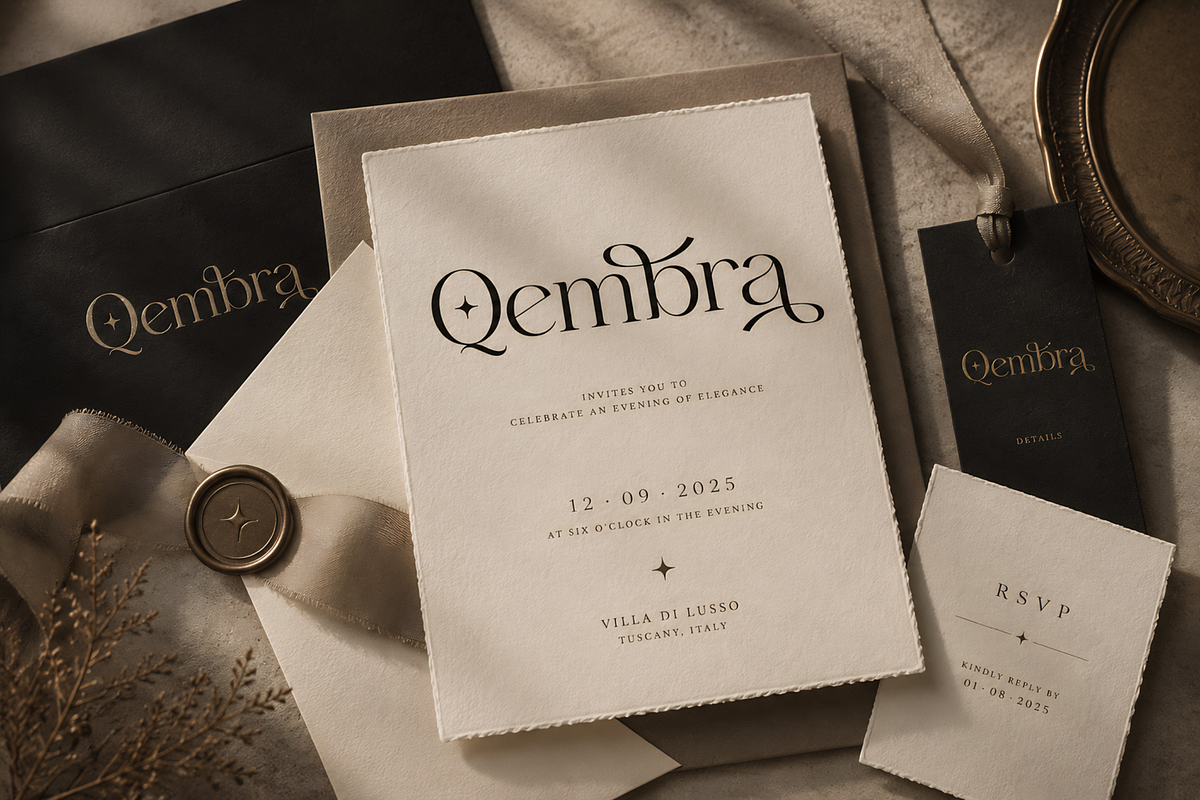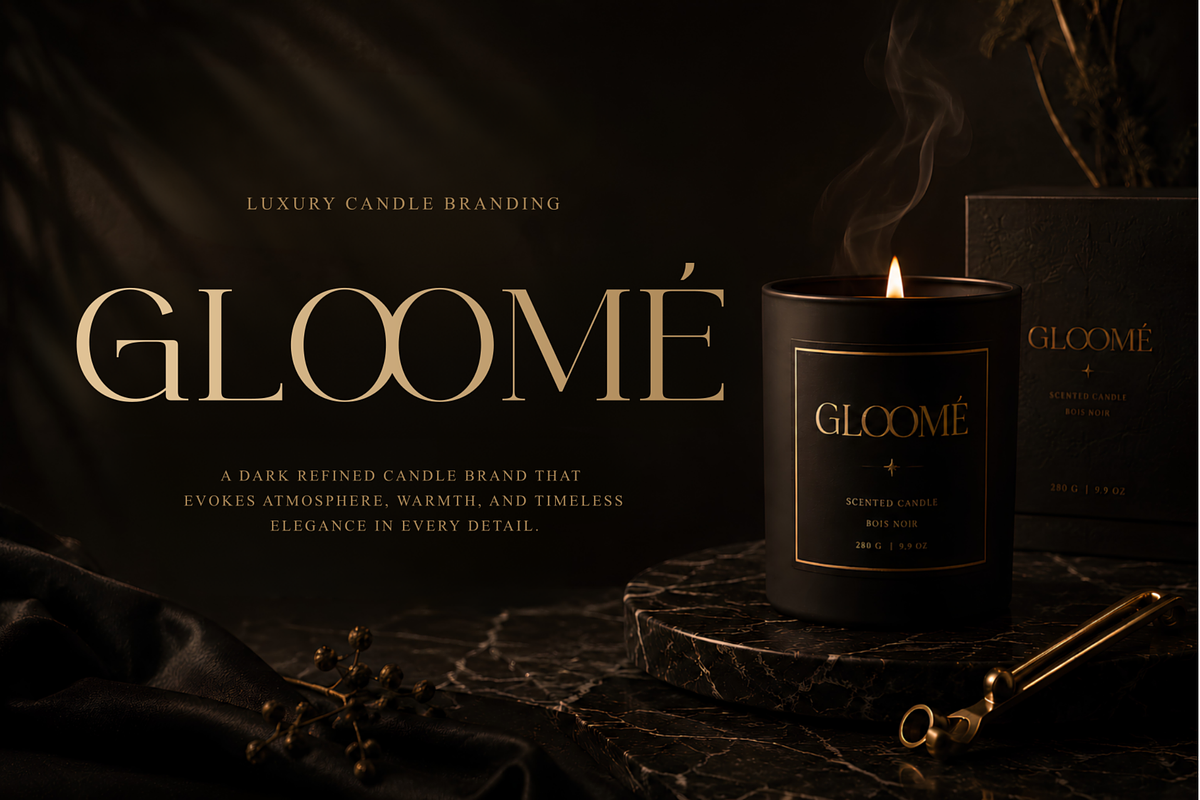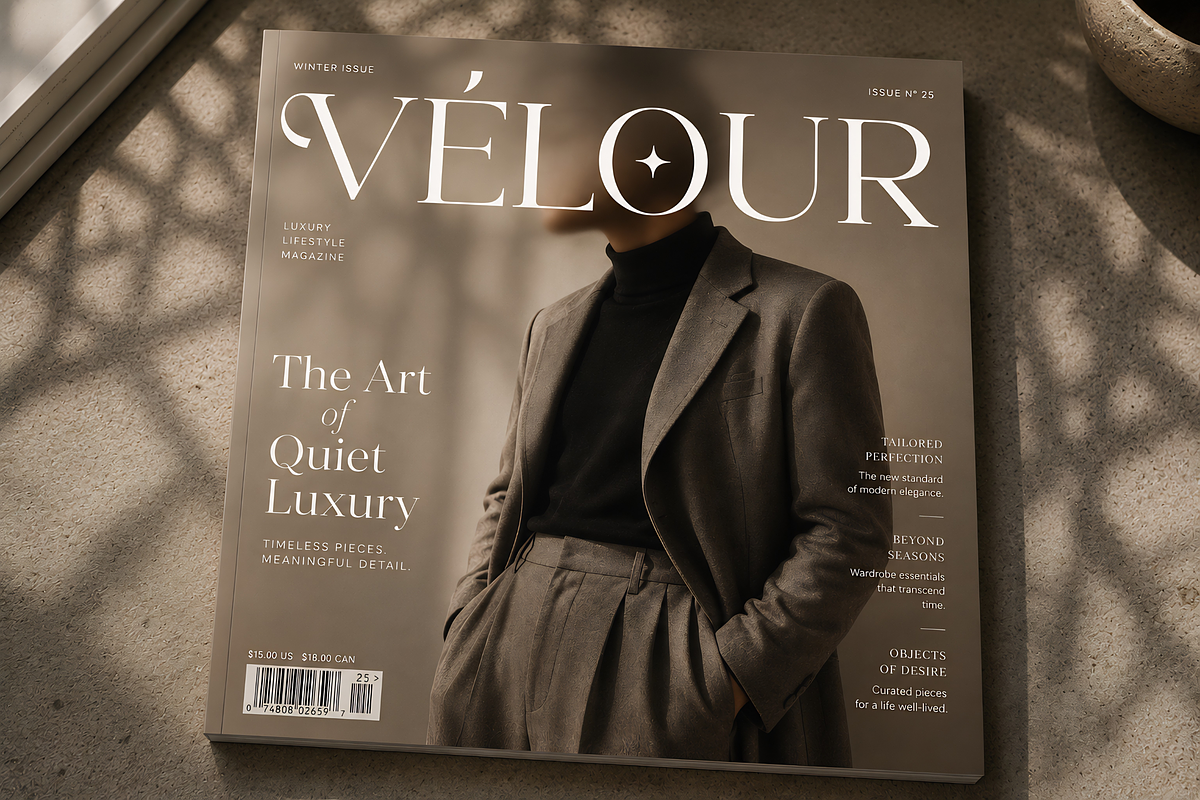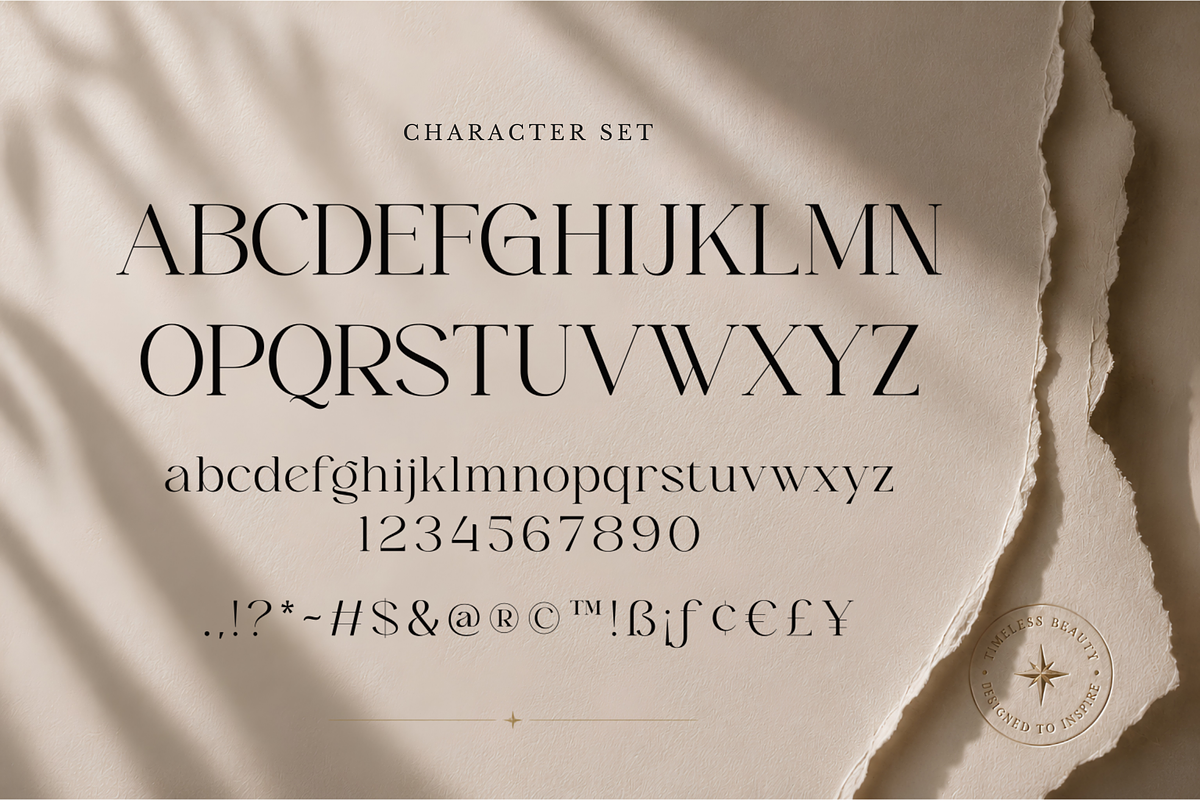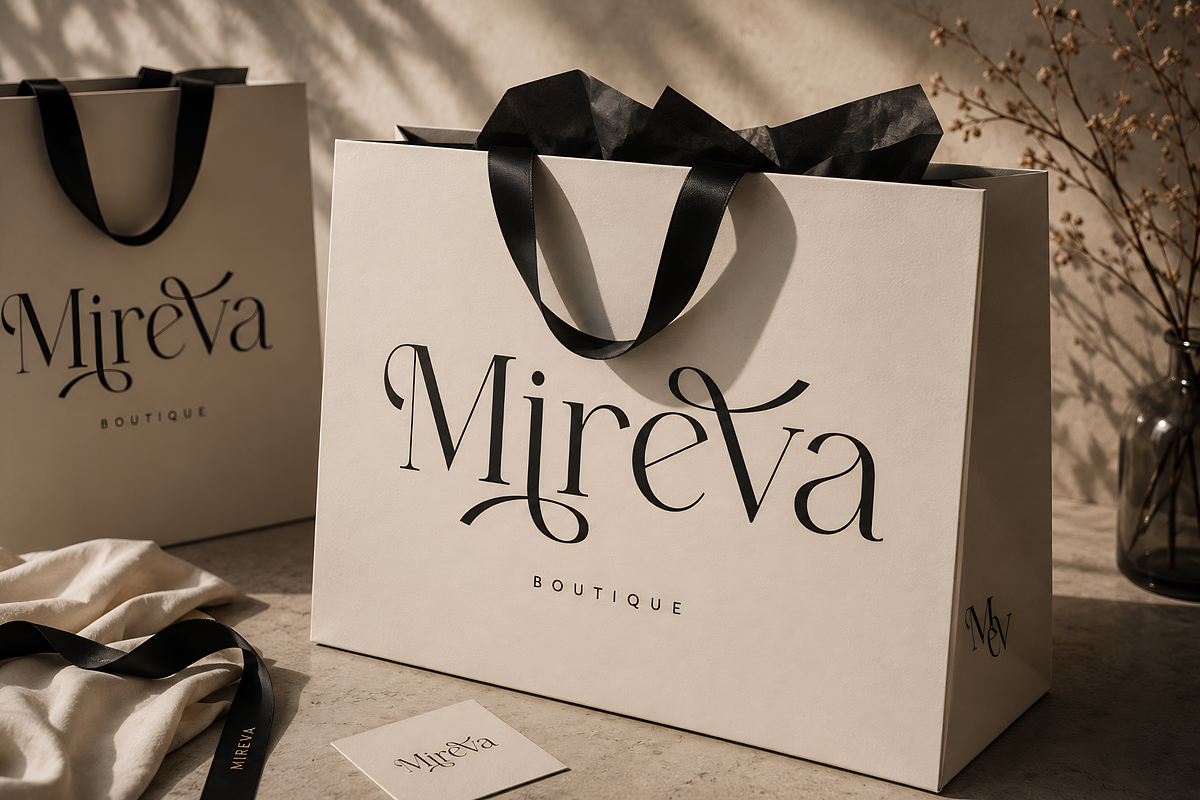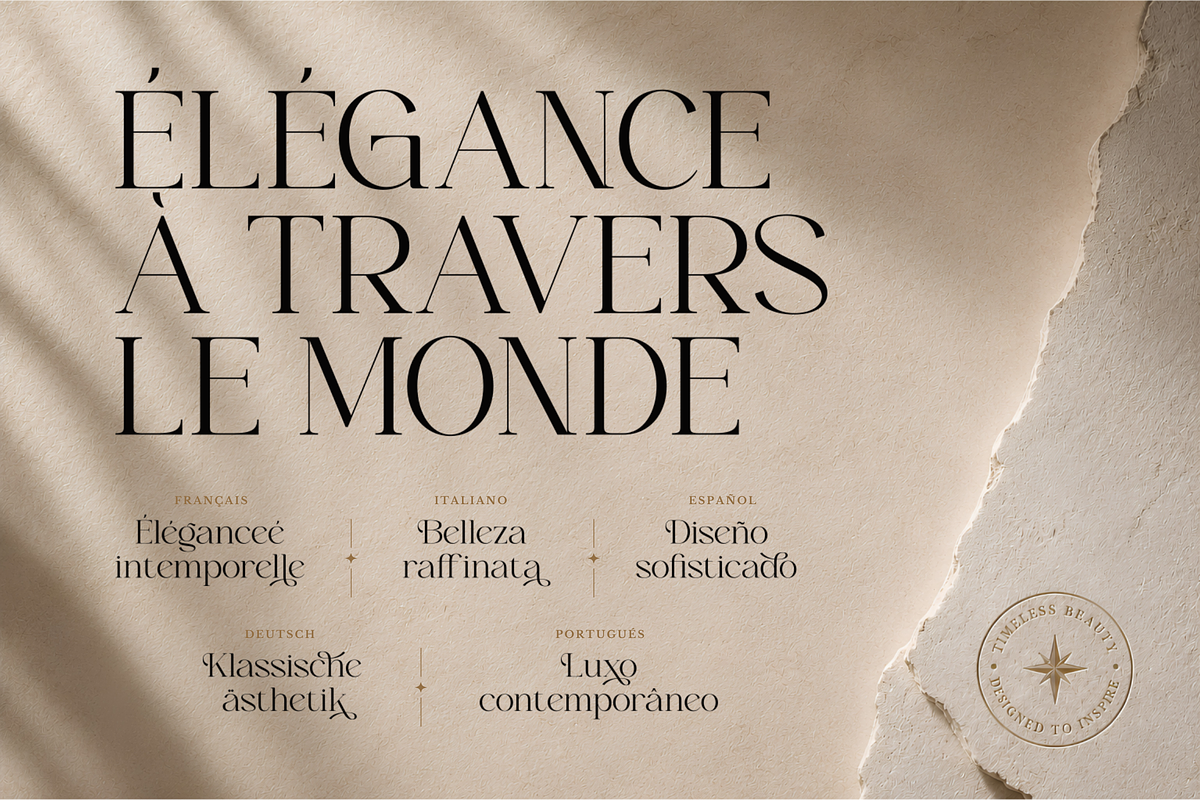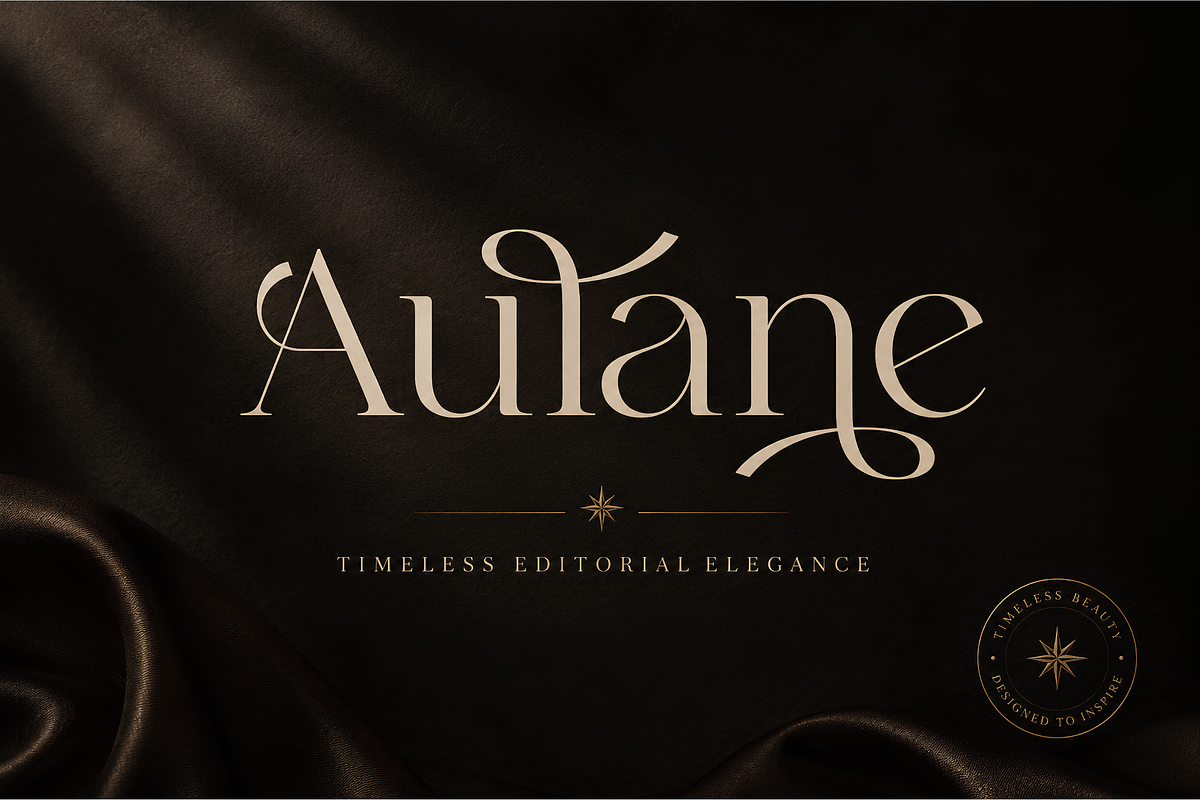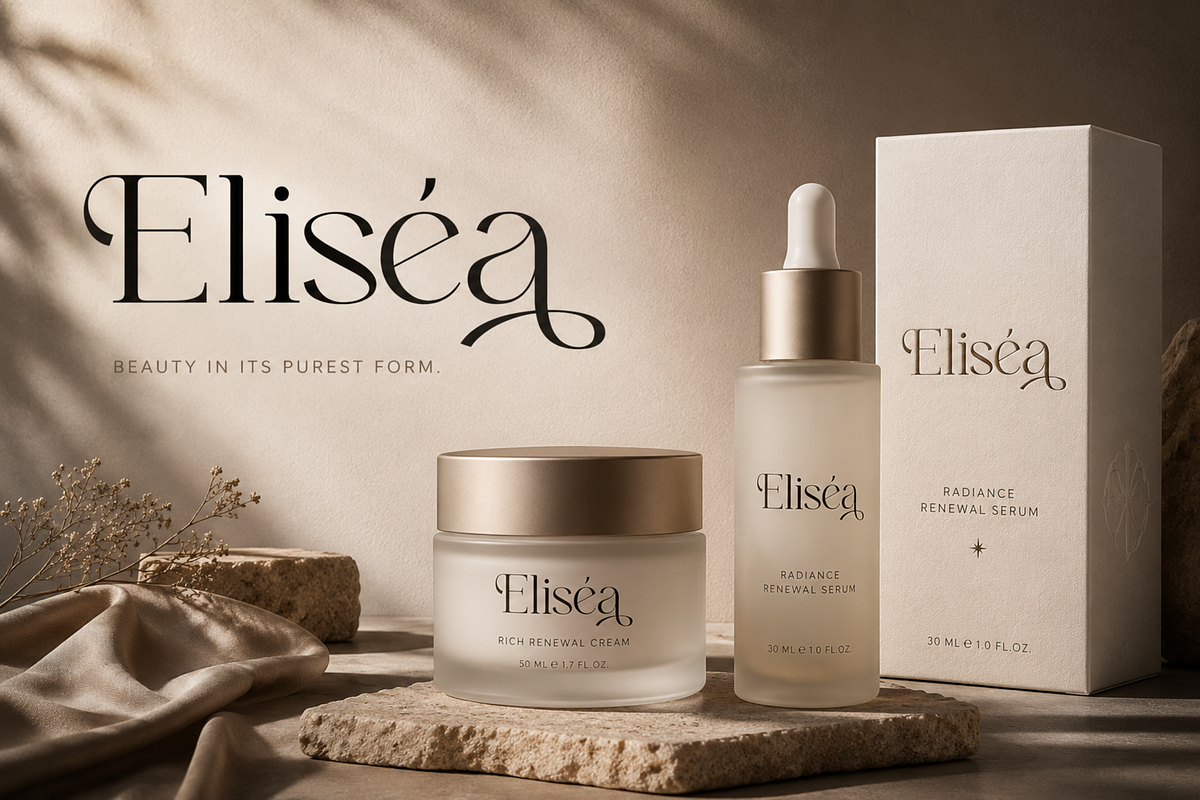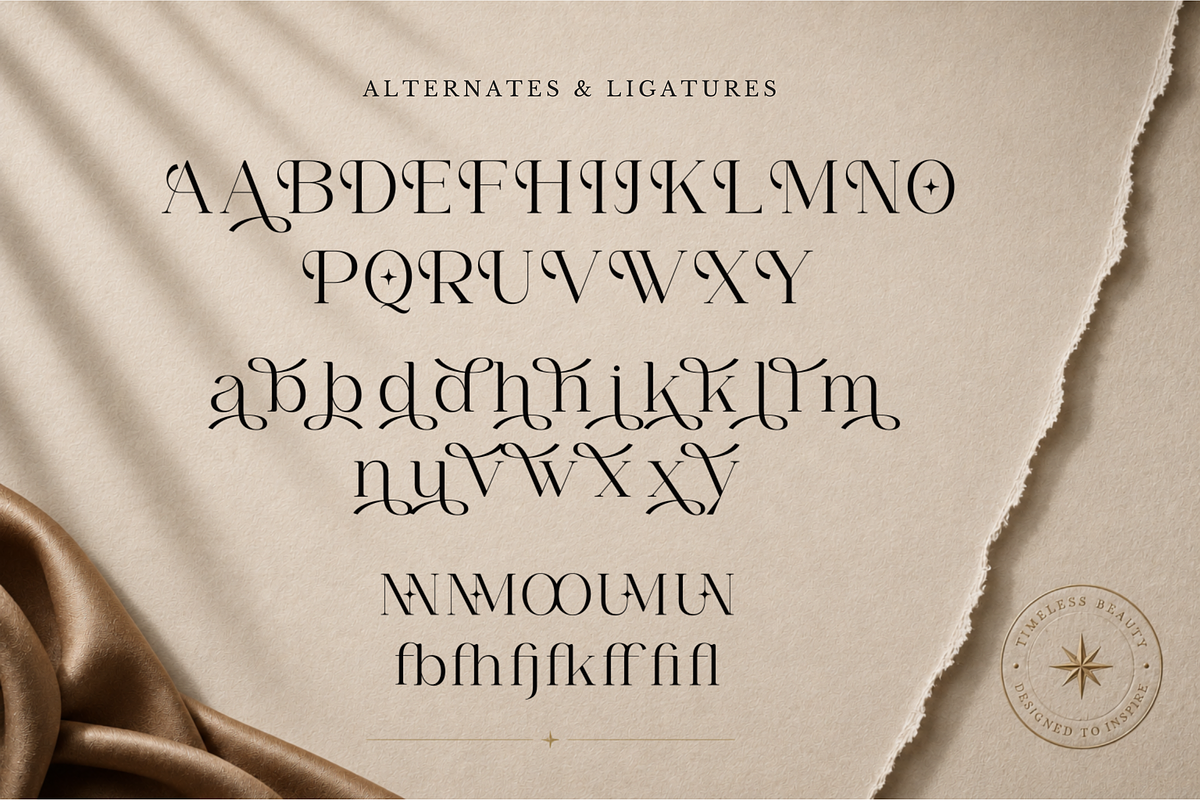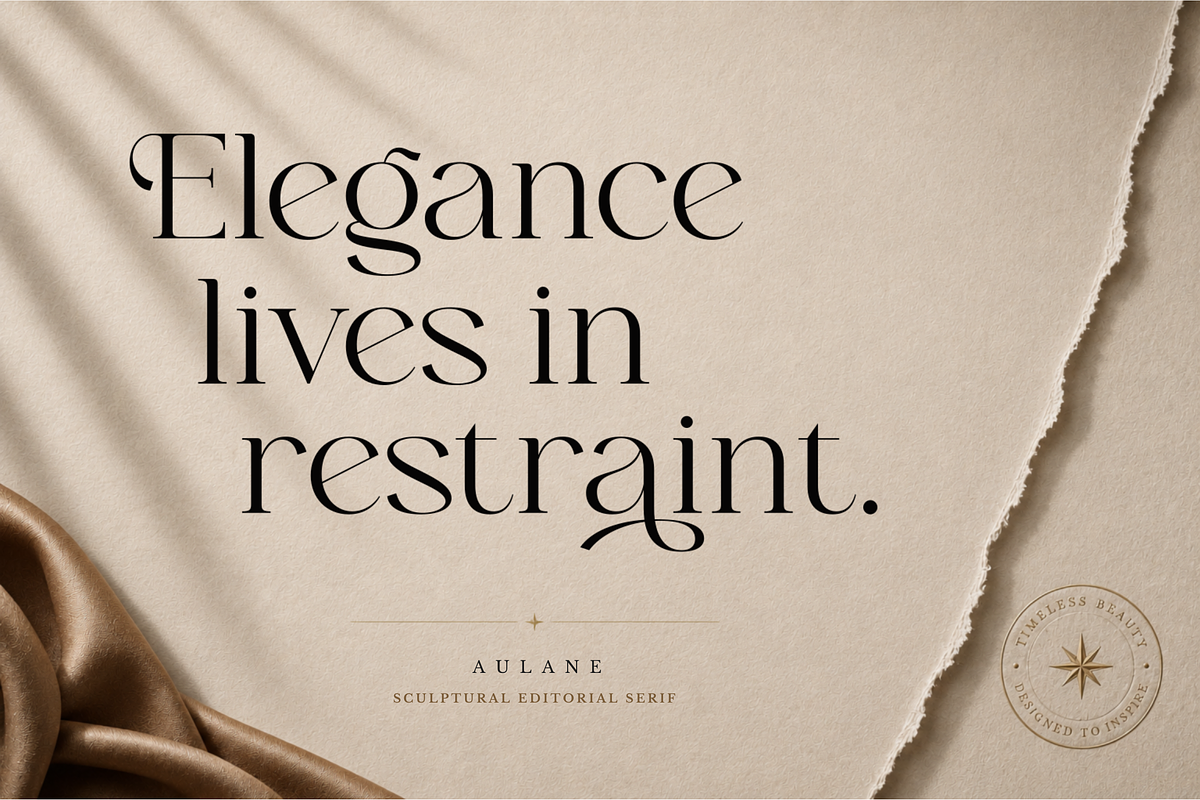
Aulane – Sculptural Editorial Serif
Aulane is a sculptural editorial serif font for refined branding, packaging, editorial layouts, and commercial identity systems.
Designed for brands built on restraint, Aulane brings a composed yet distinctive voice to visual projects. Its high-contrast letterforms, graceful curves, expressive alternates, and ligature details make it especially strong for identities that need presence without becoming overly decorative.
Use Aulane to create fragrance labels, beauty packaging, boutique fashion identities, editorial headlines, candle collections, wedding stationery, magazine covers, product packaging, and refined logo systems.
The standard characters work beautifully for clean and restrained compositions, while the alternates, ligatures, and swashes help you create more custom-feeling wordmarks, packaging details, editorial titles, and campaign typography.
Aulane is ideal for designers who want a serif font that feels considered, atmospheric, and commercially polished — not loud, not generic, but quietly recognizable.
Fragrance branding
Beauty and skincare packaging
Boutique fashion identities
Editorial headlines
Magazine covers
Candle and lifestyle products
Wedding stationery
Logo design
Product packaging
Refined brand systems
Campaign typography
Lookbooks and visual presentations
Numerals and punctuation
Swash characters
Latin-based multilingual support
Aulane is more than a display serif. It is a visual language for brands that value restraint, atmosphere, and thoughtful design.